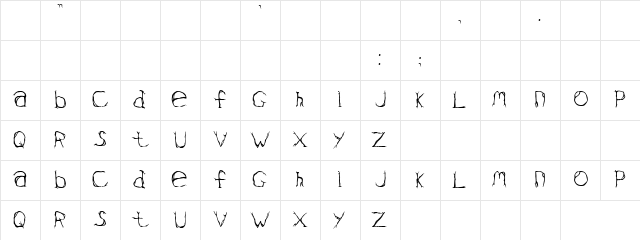
Swell Font Regular
Design Context for Swell Font Typeface
Swell Font is a composed and adaptable typeface that performs quietly and consistently across a wide range of design contexts.